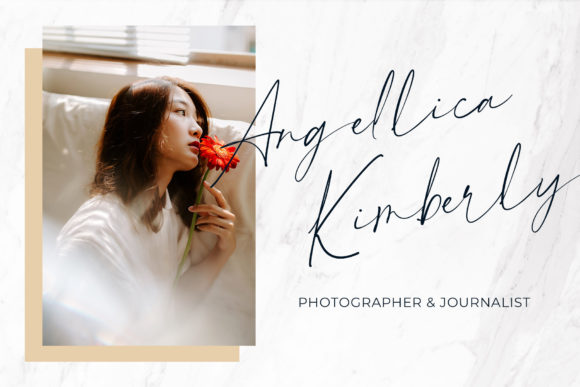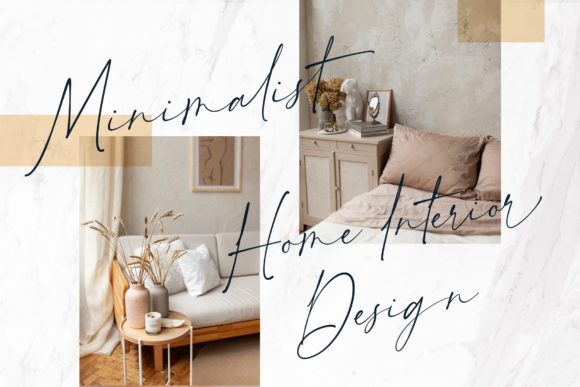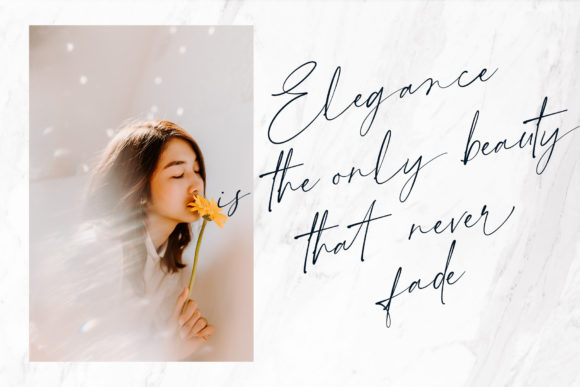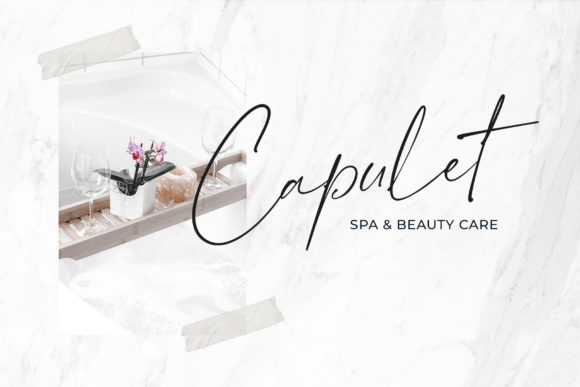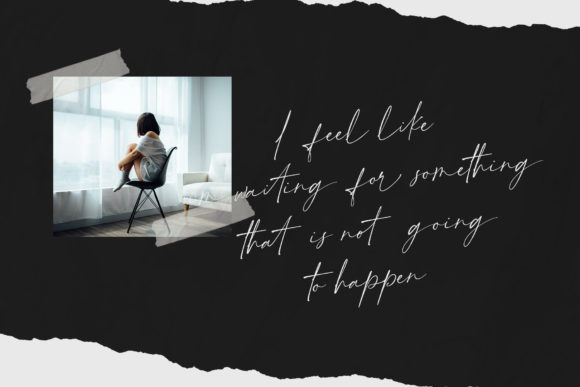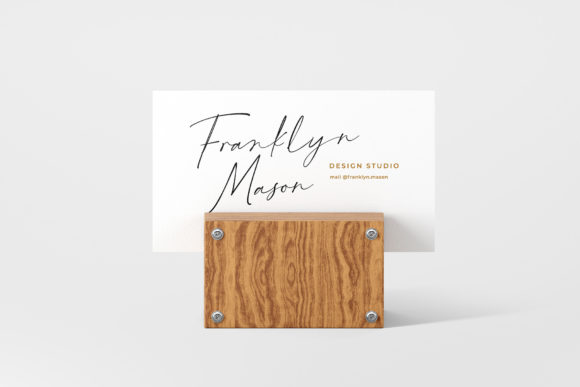
The Callahan Font: A Handcrafted Signature Style for Creative Projects
I’ll never forget the time I was working on a branding project for a small business, and I just couldn’t find the perfect font to capture their unique personality. The client wanted something that felt personal, yet professional; elegant, yet approachable. That’s when I stumbled upon the Callahan font, a simple yet stunning handcrafted signature font that instantly resonated with me. In this article, I’ll share my experience with Callahan, its features, and how to make the most of it in your creative projects.
An Honest Review of Callahan Font
What I Love About Callahan ✨
- ✅ Simple yet elegant handcrafted design
- ✅ Perfect for creating unique logos, branding, and product packaging
- ✅ Works beautifully for invitations, quotes, t-shirts, labels, and posters
- ✅ Highly versatile and adaptable to various design styles
- ⚠️ Limited character set compared to other fonts
- ⚠️ May not be suitable for body text or lengthy content
The Designer Inspiration Behind Callahan
The Callahan font was designed with the intention of creating a simple, yet elegant handcrafted signature font. The designer aimed to craft a font that would feel personal, yet professional; elegant, yet approachable. While the exact design process is unknown, it’s clear that the font was created with love and attention to detail.
| Font Name | Callahan Font |
| What is the Callahan font best used for? | The Callahan font is perfect for branding, product packaging, invitations, quotes, t-shirts, labels, posters, or any logo you want to develop. |